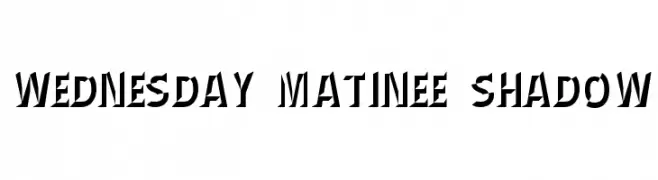
( Fonts by David Kerkhoff - www.hanodedphotography.com )
A dynamic, expressive handwritten font with bold, sweeping strokes.
( Fonts by Steve Ferrera )
Festive dingbat font with Christmas ornaments, snowflakes, and mouse motifs.
( Fonts by Marcin Leskow - www.martinleskow.pl )
A bold, wind-swept decorative font with a playful and dynamic style.
( Fonts by www.typodermicfonts.com - Ray Larabie )
A bold, geometric font with a three-dimensional shadow effect.
A decorative font featuring career-themed icons for each character.
Holiday-themed bear illustrations as font glyphs.